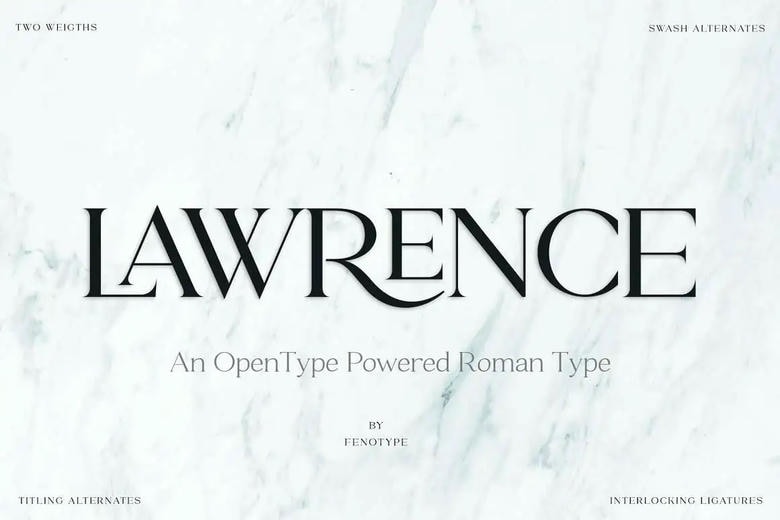
Lawrence Font
Lawrence is an elegant Roman Display typeface powered by OpenType technology with two weights. Ideal for branding, fashion packaging, editorial purposes or branding projects; Lawrence comes equipped with an impressive 192 OpenType alternatives including Swash Stylistic Alternates for added versatility.
Lawrence also features interlocking ligatures that are set into discretionary Liatures, such as Uppercase + Uppercase, Uppercase + Lowercase, and Lowercase + Lowercase pairs. PUA coded characters can be found either within Glyph Palette or the Character Map.